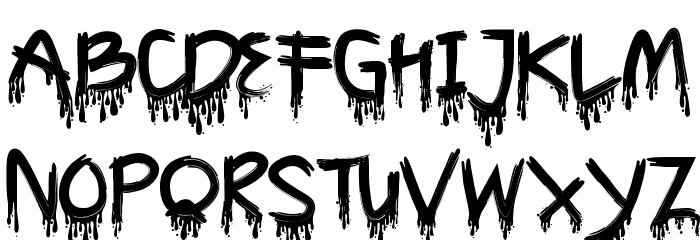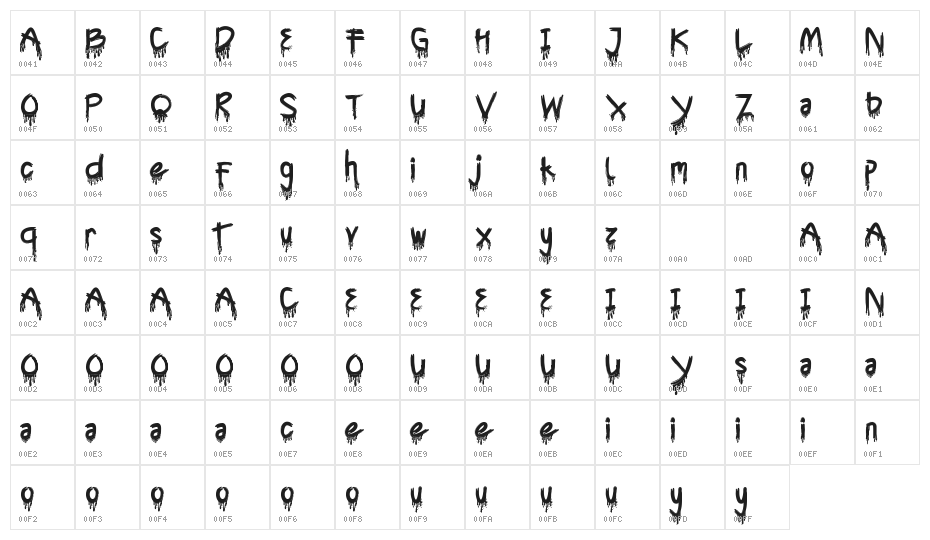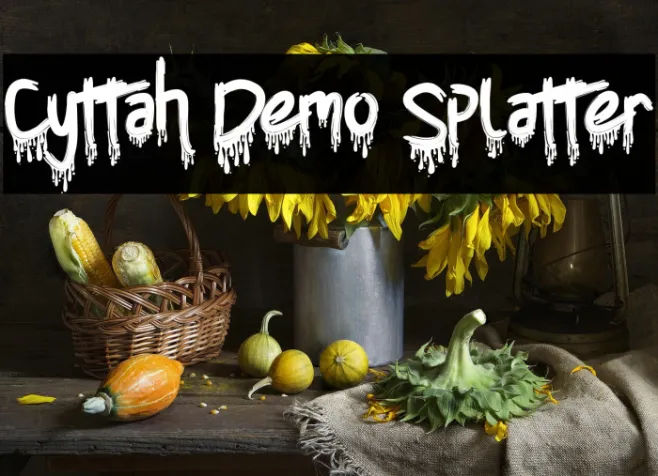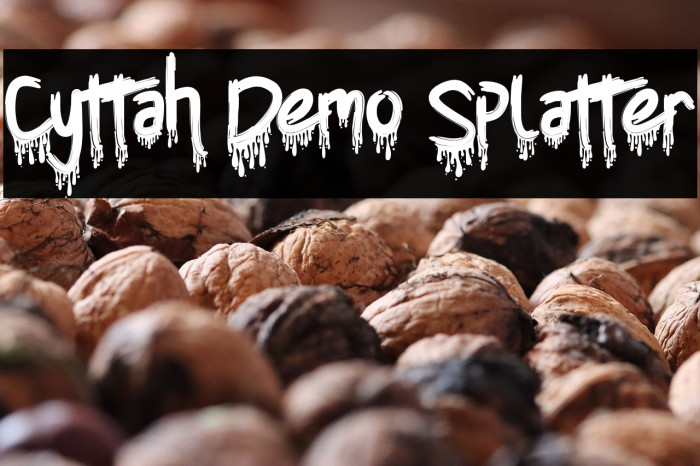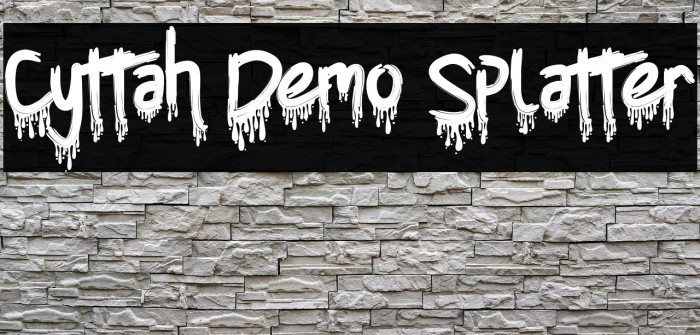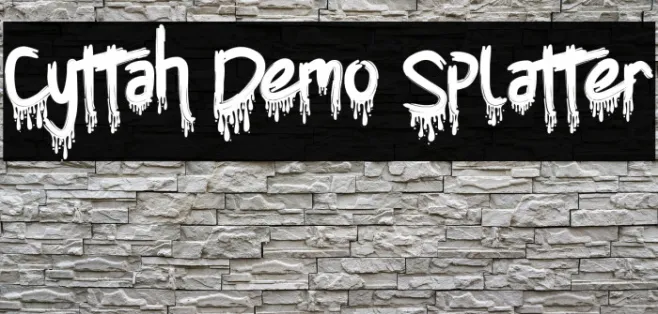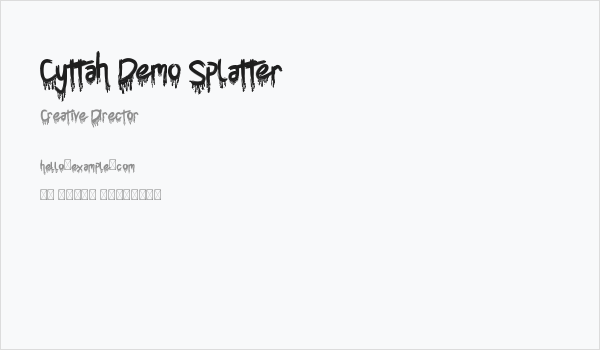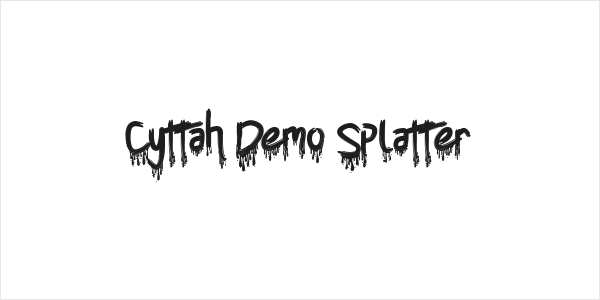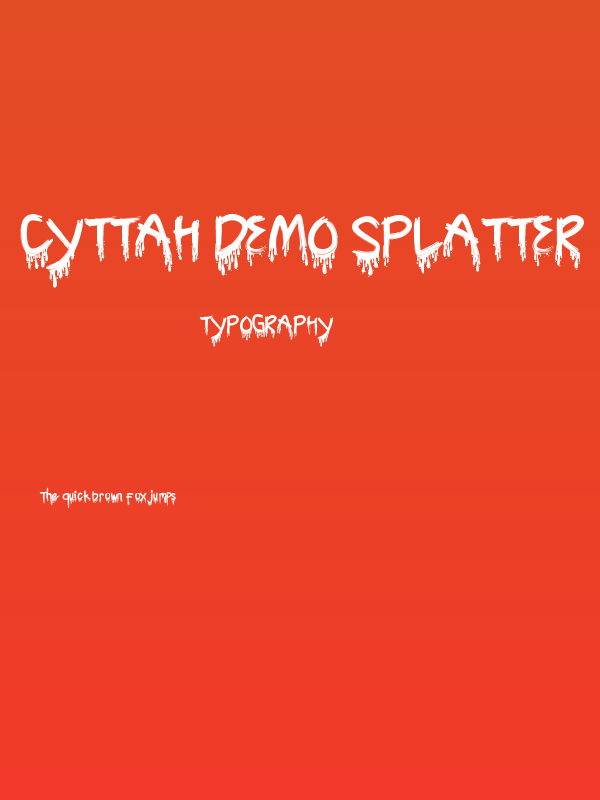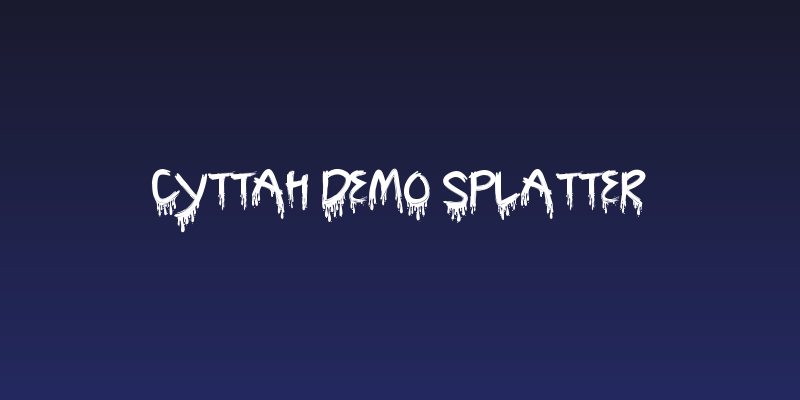
Cyttah Demo Splatter Font
Cyttah Demo Splatter Description
This font features a unique and edgy design with a splatter effect that gives it a dripping, liquid appearance. The characters are bold and expressive, with irregular edges that enhance its dynamic and chaotic style. The uppercase and lowercase letters maintain a consistent theme, with the splatter effect adding a sense of movement and energy. This font is perfect for projects that require a bold statement or a grunge aesthetic, such as posters, album covers, or Halloween-themed designs. Its distinctive style makes it stand out, capturing attention with its dramatic and artistic flair.
| Proposed Projects | Ideal for posters, album covers, Halloween designs, and any project needing a bold, grunge aesthetic. |